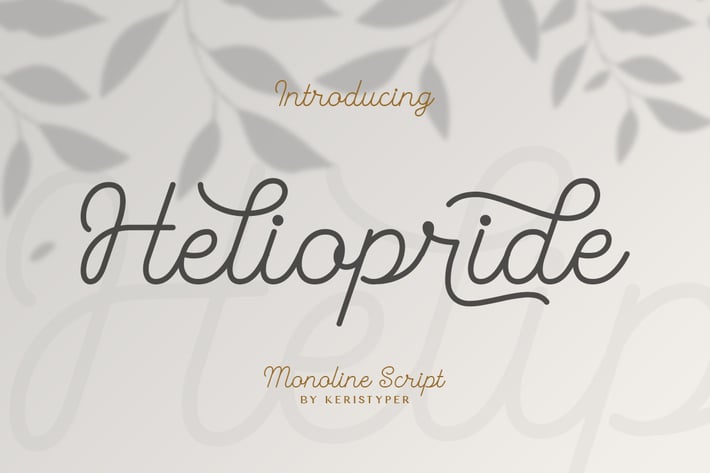
Heliopride Monoline Font
Heliopride A Monoline Script Font was fully thought out to easily meld inside your designs. An excellent choice to add the right amount of elegance. This custom made font was specifically designed to fit whatever you need. Perfect for social media posts and ads, printed quotes, t-shirt designs, packaging, or even as a modern text overlay to any background image.
Heliopride Handwriting Font multilingual support:
Afrikaans, Albanian, Catalan, Danish, Dutch, English, Estonian, French, Finnish, German, Icelandic, Indonesian, Italian, Malay, Norwegian, Portuguese, Spanish, Swedish, Zulu, and many more.